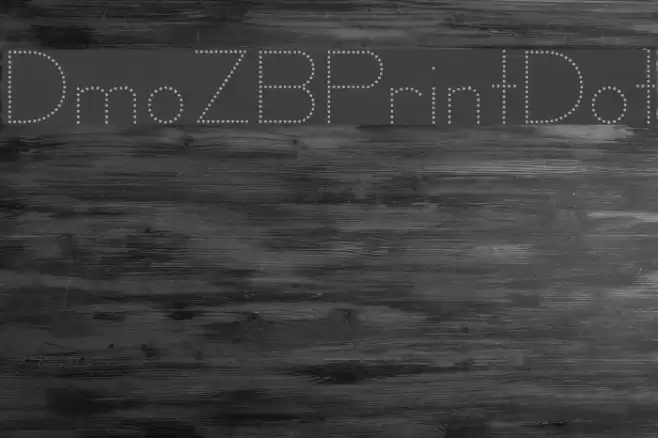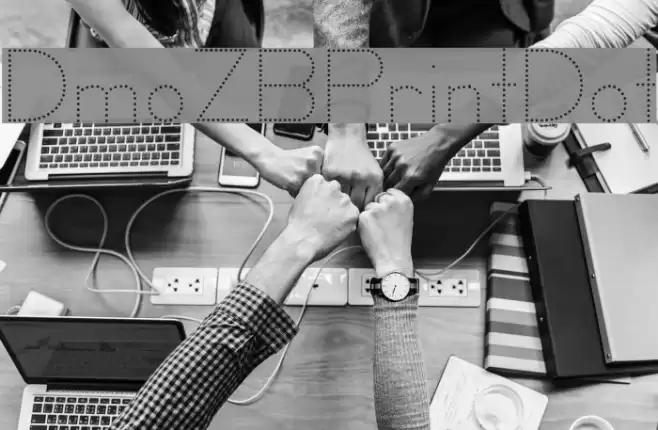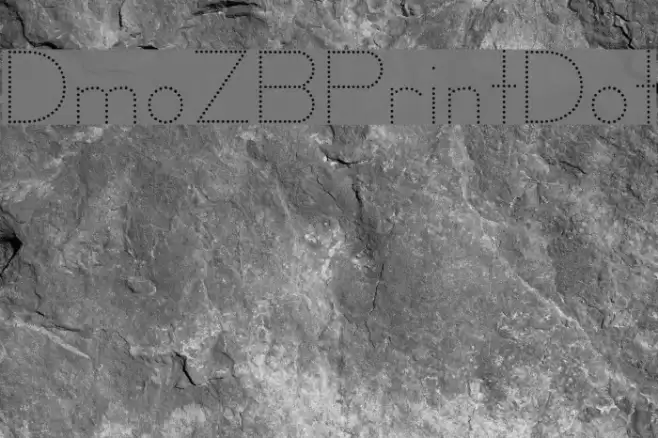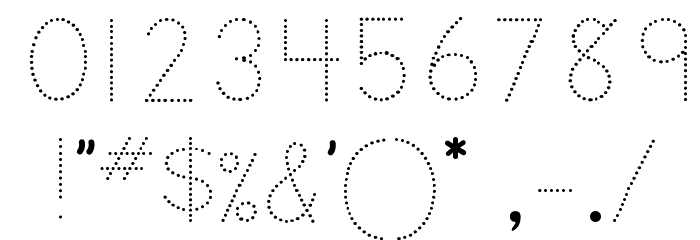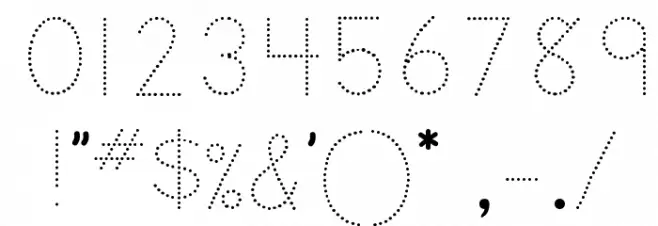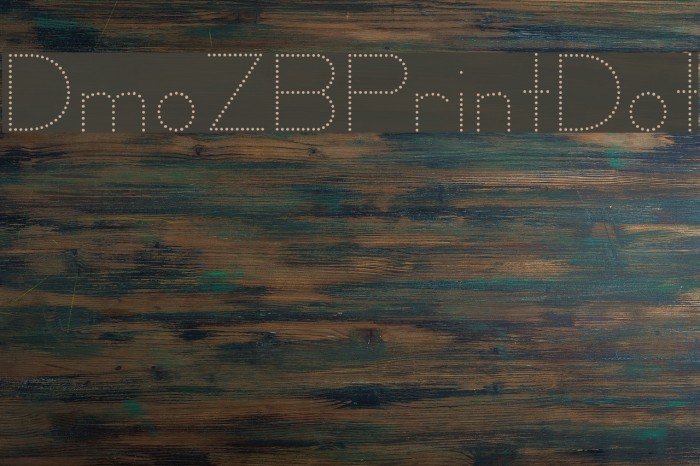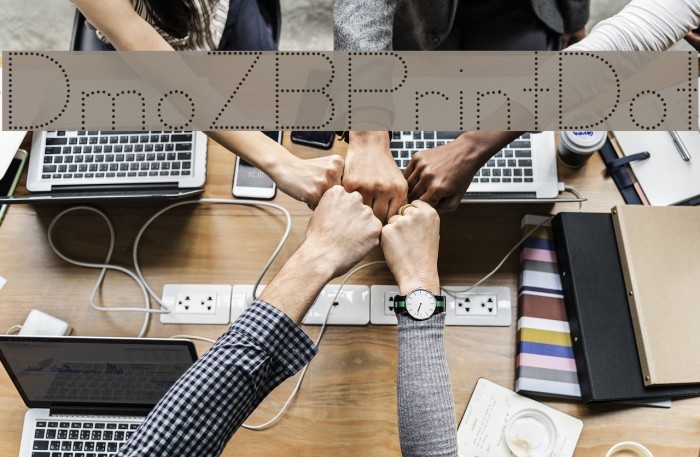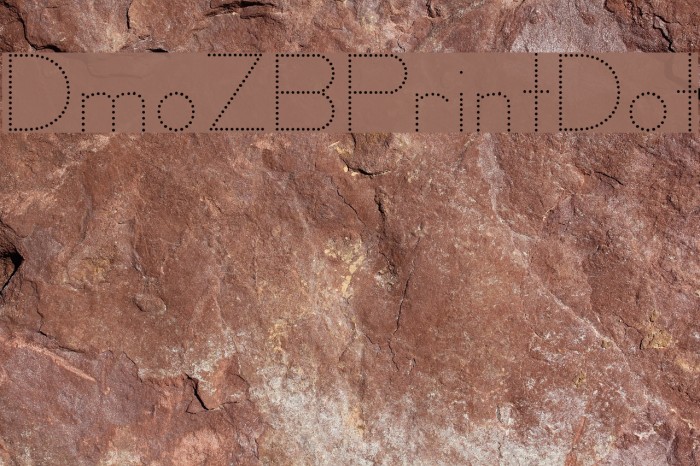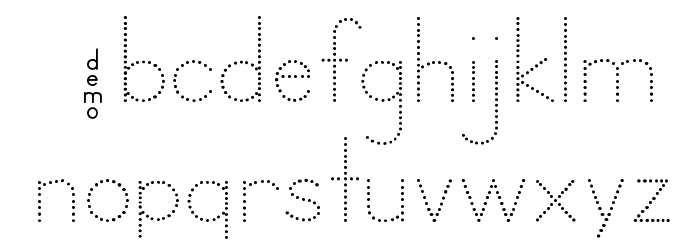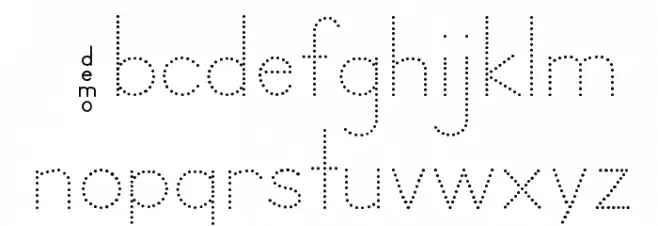
DmoZBPrintDot Font
DmoZBPrintDot Description
This font features a unique dotted design, where each character is formed by a series of evenly spaced dots. The uppercase and lowercase letters maintain a consistent size and spacing, creating a uniform appearance. Numbers and special characters follow the same dotted pattern, ensuring a cohesive look across all elements. The font's simplicity and clarity make it easily readable, while the dotted style adds a playful and modern touch. This font is ideal for projects that require a distinctive and eye-catching typeface without sacrificing legibility.
A modern, dotted font with evenly spaced characters for a playful yet clear appearance from Uncategorized fonts.
- Proposed Projects: Ideal for creative projects like posters, invitations, and branding materials where a unique and modern look is desired.